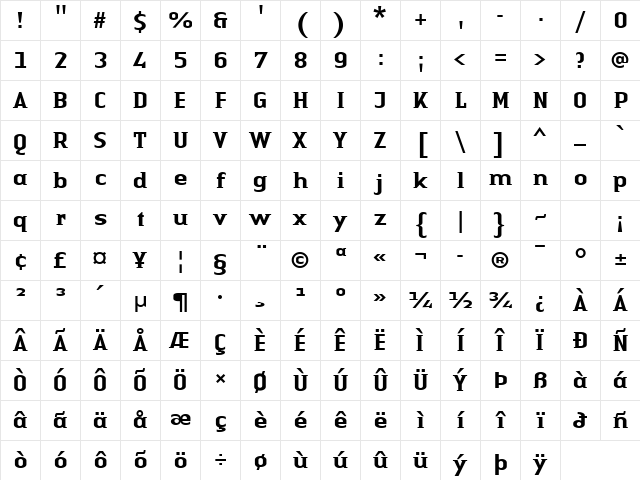
Complete LTAuthenticSmallSerif Medium Medium glyph index. Displaying only characters natively supported by LTAuthenticSmallSerif Medium Medium font.
LTAuthenticSmallSerif Medium carries the refined structure of traditional serif typography, with bracketed terminals and considered proportions that communicate credibility and craft.